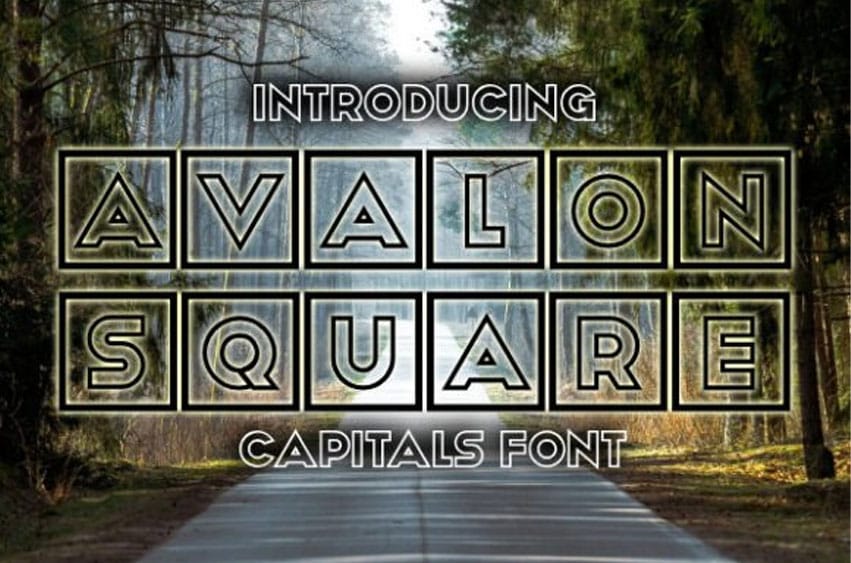
Avalon Square Font is a unique display font that features letters enclosed in squares. It has a bold and modern look, making it perfect for eye-catching headlines and titles.
The square shapes give the font a playful and geometric feel, adding a fun touch to any design.